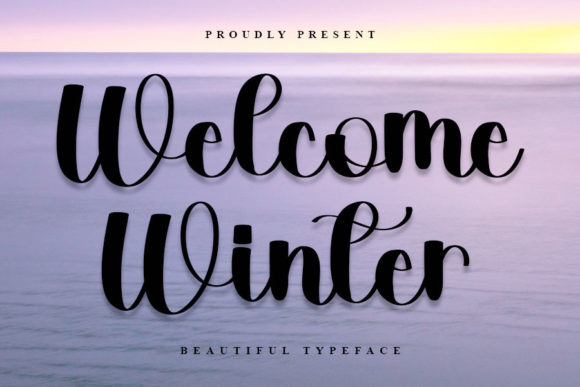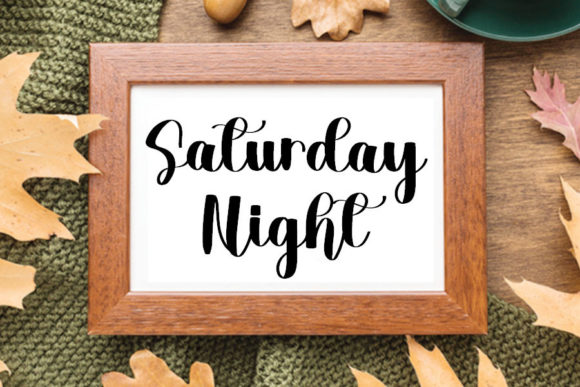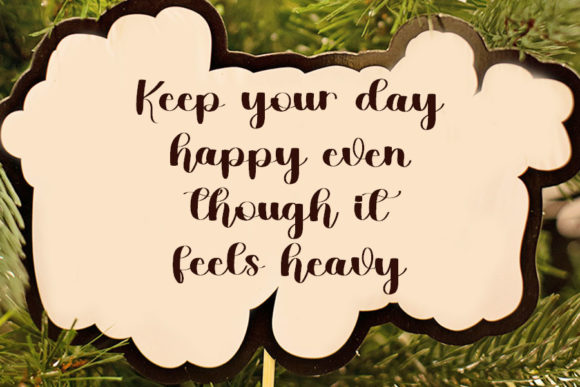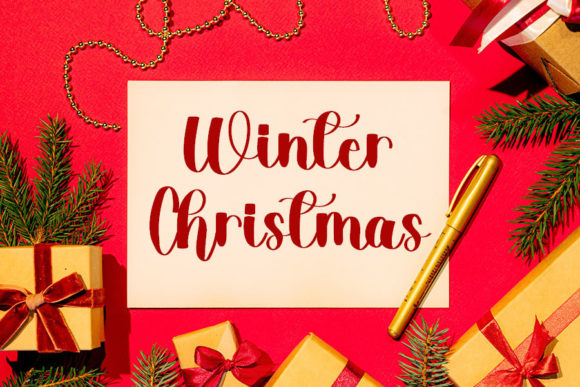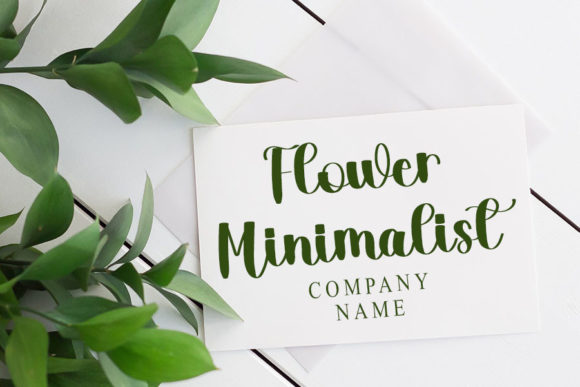
Welcome Winter Font
About Welcome Winter Font
Welcome Winter is a chic, thick lettered and unique script font. Fall for its ravishing style and use it to create gorgeous wedding invitations, beautiful stationary art, eye-catching social media posts, and much more!